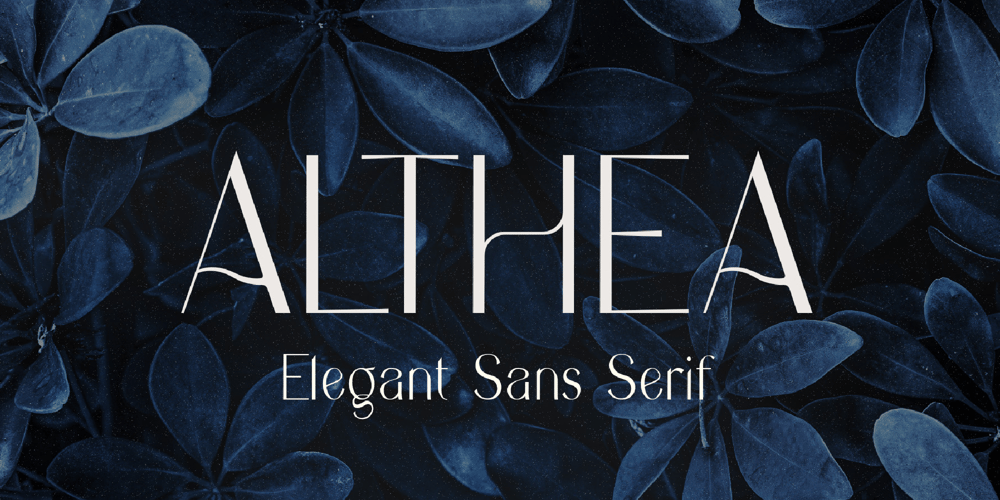
Althea
Althea font
Althea Font Family was designed by Igor Ovsyannykov and published by Hipfonts. Althea contains 1 styles and family package options. Althea is a modern sans serif typeface suitable for branding, packaging, invitations, quotes, labels, posters, social media, magazines etc. Althea’s sharp angles will give your fashion designs a clean and unique look. If you’re looking for a typeface with a touch of elegance, style, and class, then Althea is for you!